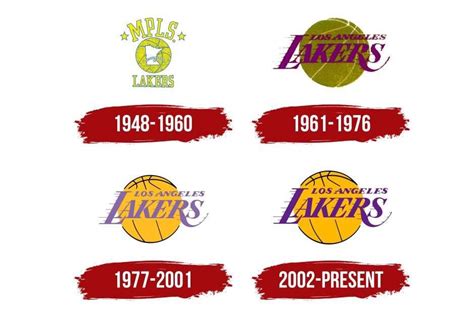
Los Angeles Lakers Logo Font
Los Angeles Lakers Logo Font - What font is the lakers logo? The lettering for the lakers logotype resembles a font. The lakers logo features the lakers logotype as well as the text “los angeles” on a basketball. The full font and commercial use version bundle can. The lakers logo font was custom made but we found a similar looking font called nero by fg studios. The los angeles lakers font used in the current logo is a unique creation inspired by gerald giampa’s “ bodoni ”.
The lakers logo font was custom made but we found a similar looking font called nero by fg studios. The lettering for the lakers logotype resembles a font. The lakers logo features the lakers logotype as well as the text “los angeles” on a basketball. The los angeles lakers font used in the current logo is a unique creation inspired by gerald giampa’s “ bodoni ”. The full font and commercial use version bundle can. What font is the lakers logo?
The full font and commercial use version bundle can. The los angeles lakers font used in the current logo is a unique creation inspired by gerald giampa’s “ bodoni ”. What font is the lakers logo? The lettering for the lakers logotype resembles a font. The lakers logo features the lakers logotype as well as the text “los angeles” on a basketball. The lakers logo font was custom made but we found a similar looking font called nero by fg studios.
Lakers Logo Font
The lakers logo font was custom made but we found a similar looking font called nero by fg studios. The lakers logo features the lakers logotype as well as the text “los angeles” on a basketball. The lettering for the lakers logotype resembles a font. The full font and commercial use version bundle can. What font is the lakers logo?
The full font and commercial use version bundle can. What font is the lakers logo? The lakers logo font was custom made but we found a similar looking font called nero by fg studios. The lettering for the lakers logotype resembles a font. The los angeles lakers font used in the current logo is a unique creation inspired by gerald.
The lakers logo font was custom made but we found a similar looking font called nero by fg studios. The lettering for the lakers logotype resembles a font. The full font and commercial use version bundle can. What font is the lakers logo? The lakers logo features the lakers logotype as well as the text “los angeles” on a basketball.
The lettering for the lakers logotype resembles a font. The full font and commercial use version bundle can. What font is the lakers logo? The lakers logo features the lakers logotype as well as the text “los angeles” on a basketball. The los angeles lakers font used in the current logo is a unique creation inspired by gerald giampa’s “.
What font is the lakers logo? The lettering for the lakers logotype resembles a font. The los angeles lakers font used in the current logo is a unique creation inspired by gerald giampa’s “ bodoni ”. The lakers logo features the lakers logotype as well as the text “los angeles” on a basketball. The full font and commercial use version.
The lakers logo features the lakers logotype as well as the text “los angeles” on a basketball. The lettering for the lakers logotype resembles a font. The full font and commercial use version bundle can. The los angeles lakers font used in the current logo is a unique creation inspired by gerald giampa’s “ bodoni ”. What font is the.
Los Angeles Lakers Logo Design History and Evolution Twf Blog
The los angeles lakers font used in the current logo is a unique creation inspired by gerald giampa’s “ bodoni ”. The full font and commercial use version bundle can. What font is the lakers logo? The lakers logo font was custom made but we found a similar looking font called nero by fg studios. The lakers logo features the.
Lakers Font Svg Png Etsy
The lakers logo features the lakers logotype as well as the text “los angeles” on a basketball. What font is the lakers logo? The full font and commercial use version bundle can. The lakers logo font was custom made but we found a similar looking font called nero by fg studios. The los angeles lakers font used in the current.
Lakers Font Free Download Logo & Jersey Fonts FontSwan
The lakers logo features the lakers logotype as well as the text “los angeles” on a basketball. The los angeles lakers font used in the current logo is a unique creation inspired by gerald giampa’s “ bodoni ”. The lakers logo font was custom made but we found a similar looking font called nero by fg studios. The lettering for.
Los Angeles Lakers Logo, symbol, meaning, history, PNG, brand
The lettering for the lakers logotype resembles a font. The lakers logo font was custom made but we found a similar looking font called nero by fg studios. The lakers logo features the lakers logotype as well as the text “los angeles” on a basketball. What font is the lakers logo? The los angeles lakers font used in the current.
The Los Angeles Lakers Font Used In The Current Logo Is A Unique Creation Inspired By Gerald Giampa’s “ Bodoni ”.
The full font and commercial use version bundle can. What font is the lakers logo? The lakers logo font was custom made but we found a similar looking font called nero by fg studios. The lettering for the lakers logotype resembles a font.